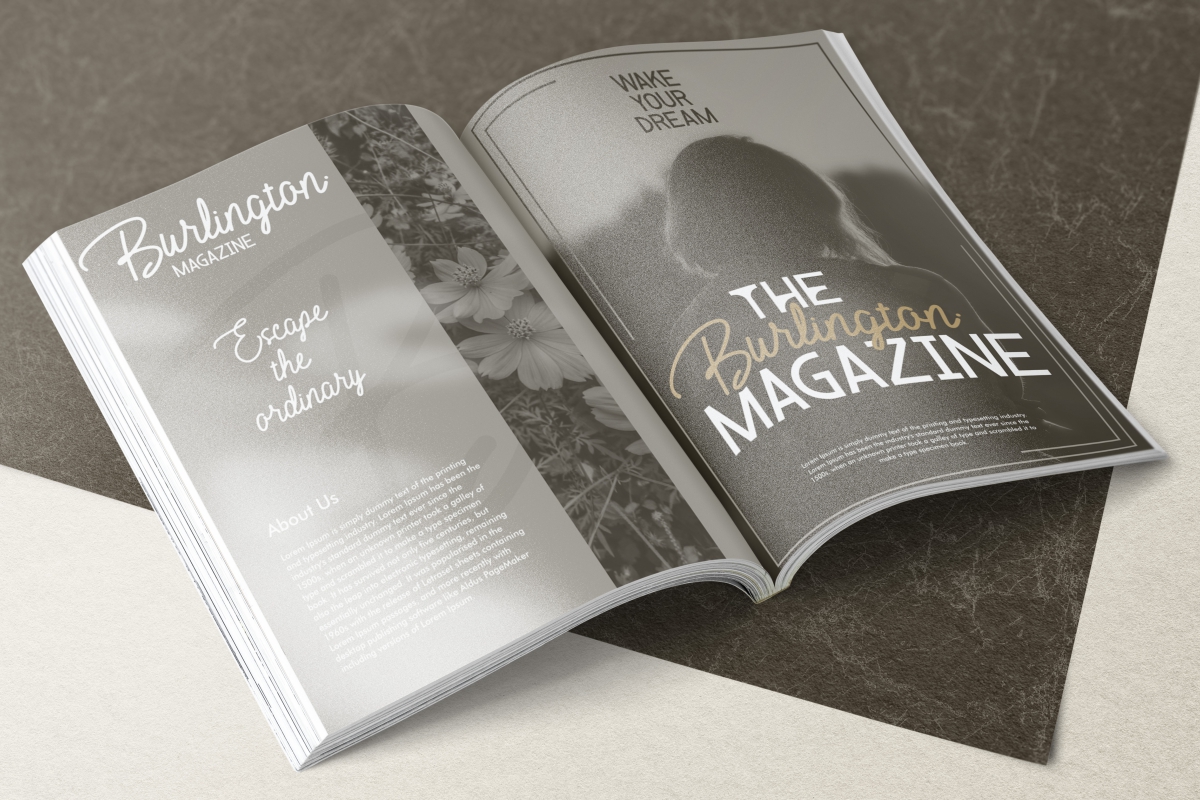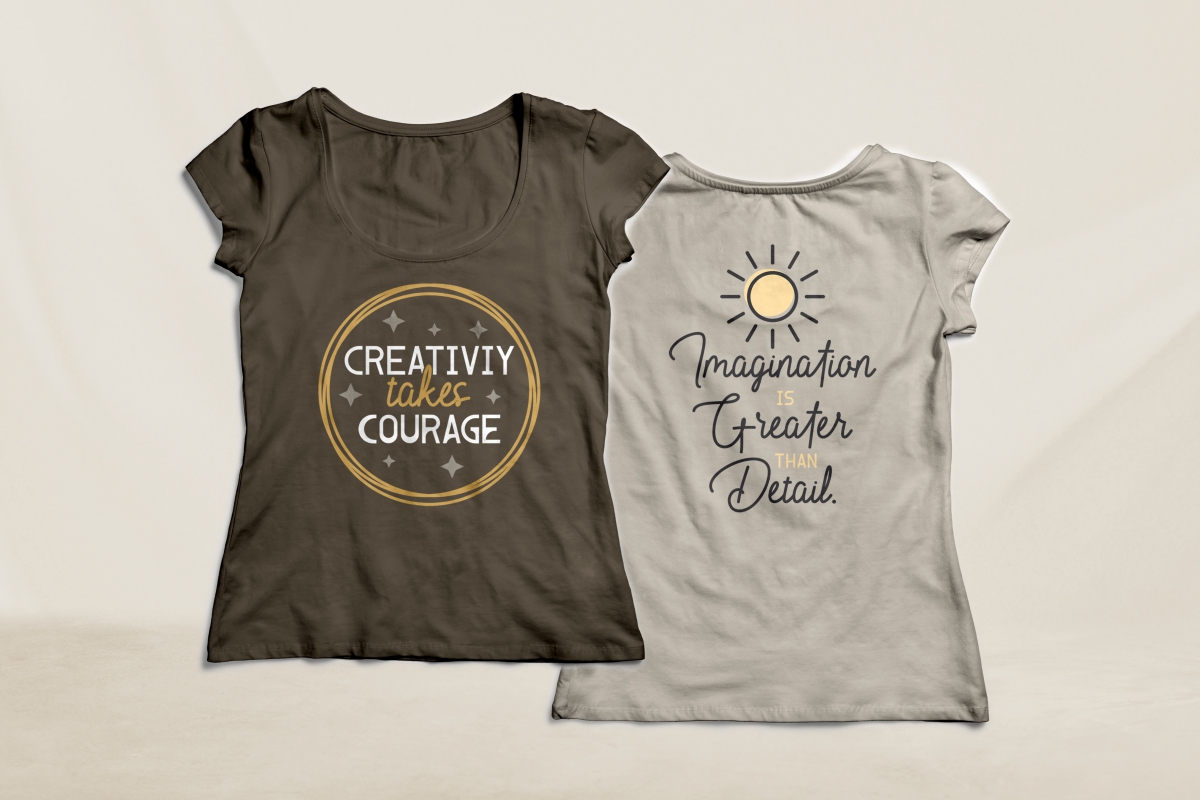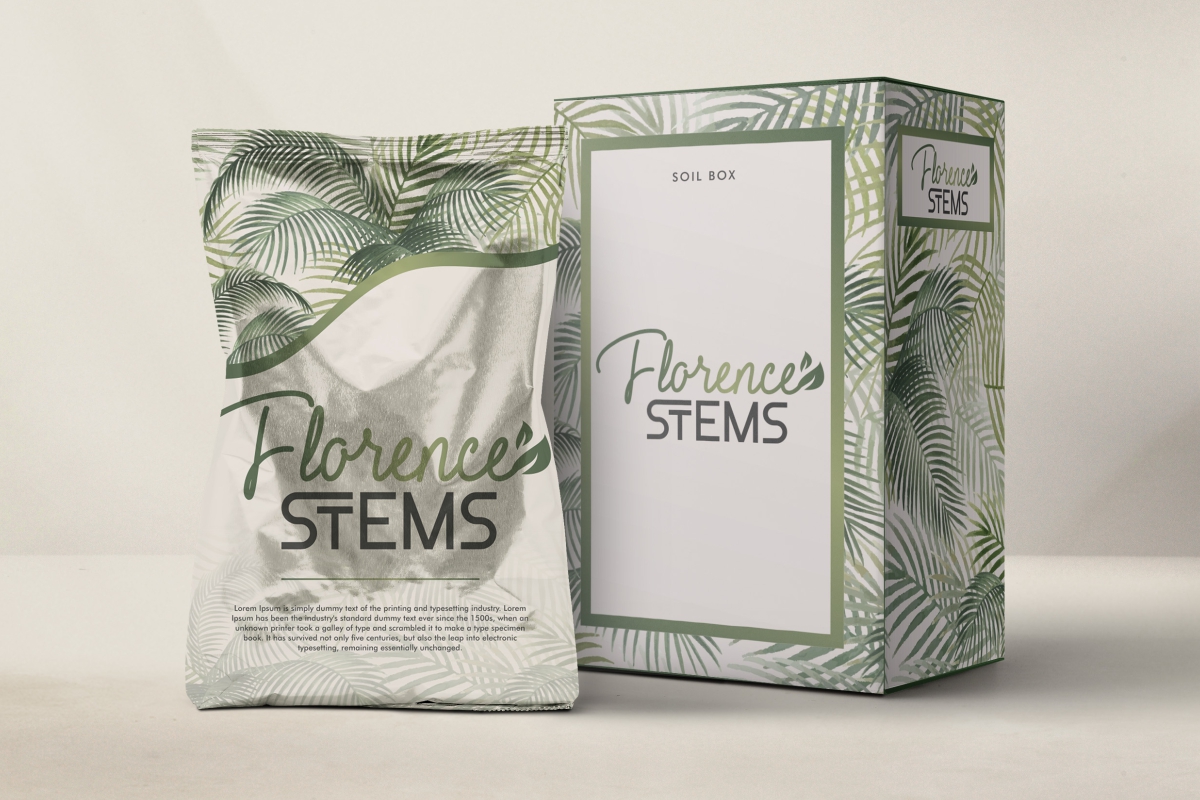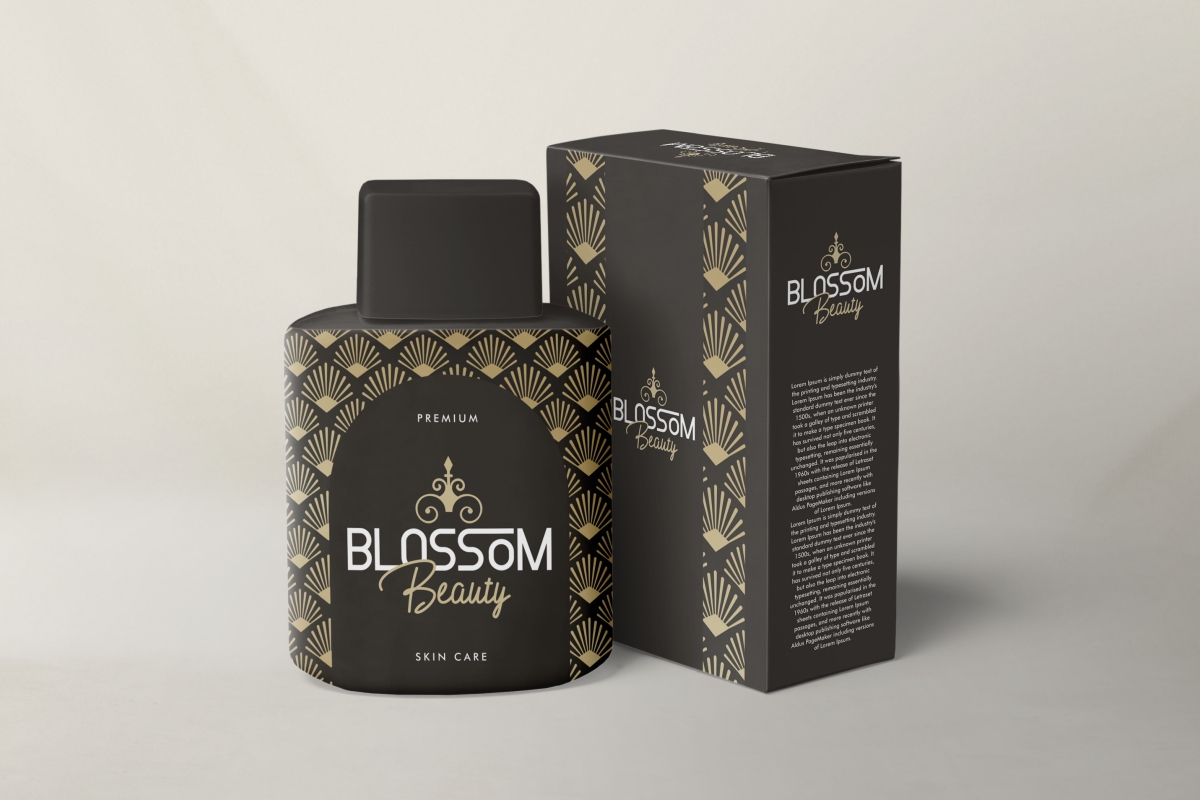
Blackshear Font Duo
This font is a new font duo by Vintype Co, it’s a combination of two different font styles : display and script font. The theme are stylish yet fun and unique look. The perfect combination will make your work spectacular. You will make a difference in your projects with this font style.
This font includes full set of Uppercase and Lowercase Basic Characters, Numerals and Punctuation. Great for many projects: books, frame art, headline, logos, magazine, product designs, quotes, writing on t-shirt and more!